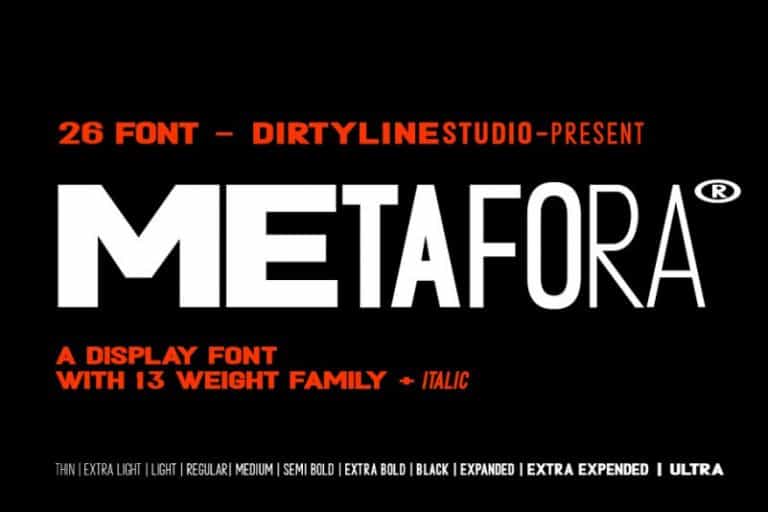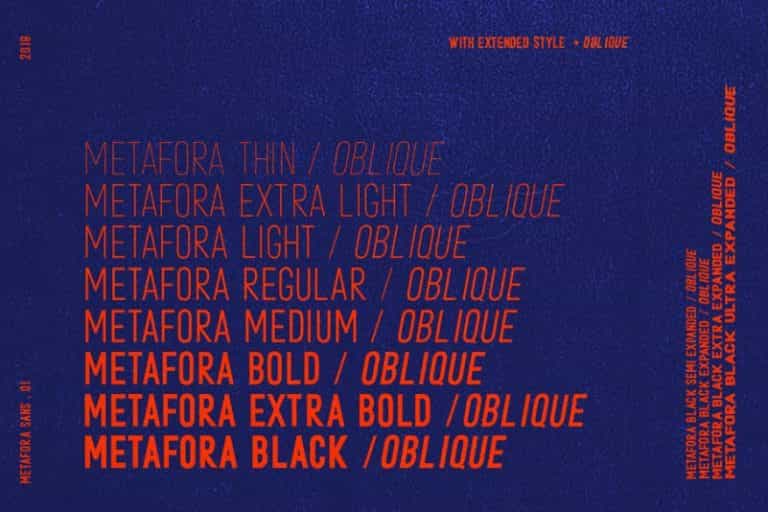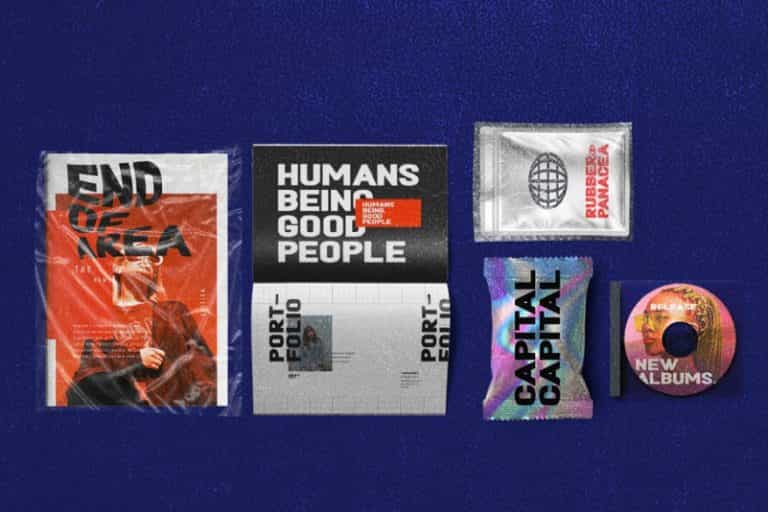
Metafora Font is a font that Dirtyline Studio has designed which is as elegant and at the same time playful. It can be used for headlines, branding projects, posters, packaging and logos! Metafora Sans Font Family is a multifunctional font family which was designed to work equally well in print and screen environments.